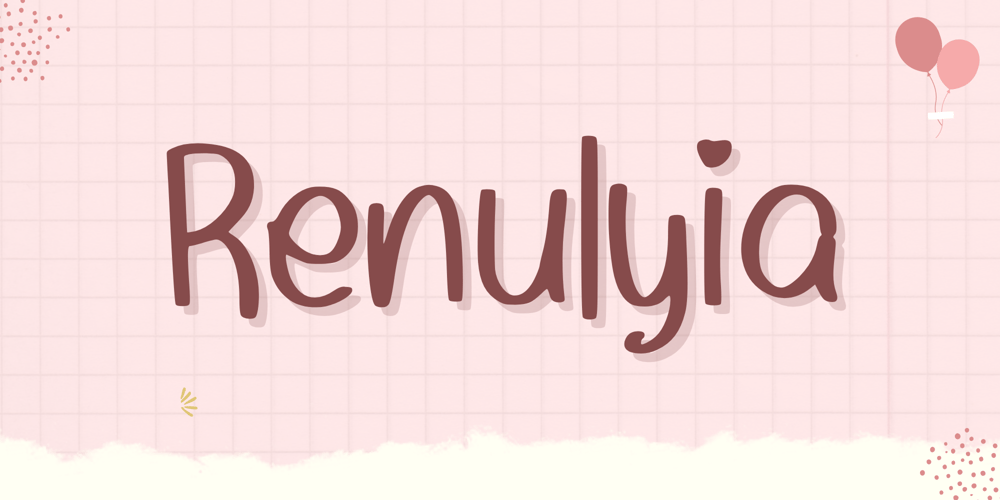
Renulyia Font Family was designed by Nur Aiysah Amalia and published by Aisyah. Renulyia contains 1 styles and family package options. Renulyia is a cute handwriting font that features a playful and casual style. It has a personal and unique touch, with strokes that mimic the look of hand-written letters. This font is perfect for adding a touch of cuteness to your designs, such as invitations, posters, or social media posts. The font is versatile and can be used for various projects, from informal to more formal ones.